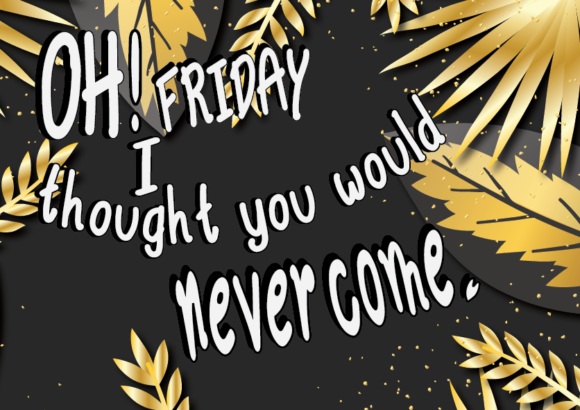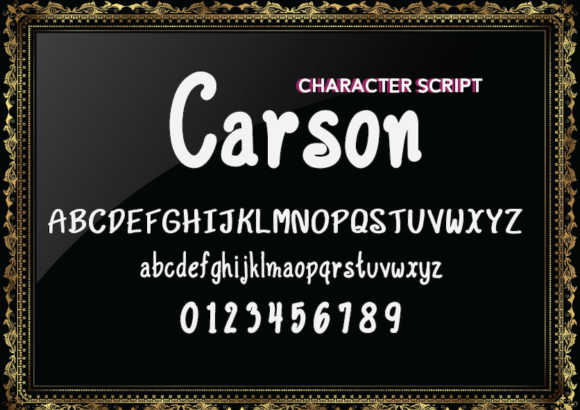
Introducing Carson Font: The Epitome of Elegance and Versatility
In the realm of typography, few fonts manage to strike a balance between elegance and versatility. However, Carson Font stands out as a beacon of sophistication, simplifying elegance into one truly outstanding handwritten font. Dubbed as the perfect fit for logos, branding, social media, and crafty DIY projects, Carson Font has emerged as a favorite among designers and crafters alike.
The Essence of Carson Font
Carson Font embodies the essence of handwritten typography with a unique flair. Its elegant strokes and fluid connections evoke a sense of personal touch, making it an ideal choice for projects that demand a human feel. Whether you’re crafting a logo, creating social media content, or working on a DIY project, Carson Font brings a level of sophistication and charm that’s hard to match.
Versatility at Its Core
One of the standout features of Carson Font is its incredible versatility. It’s designed to adapt seamlessly across various platforms and mediums, ensuring your message looks impeccable whether on a business card, a website, or a handmade craft. This adaptability makes Carson Font a valuable asset for designers and crafters who work on a wide range of projects.
For businesses and entrepreneurs, establishing a strong brand identity is crucial. Carson Font, with its elegant and memorable appearance, is an excellent choice for logos and branding materials. Its unique character ensures that your brand stands out, making it easier for customers to remember and recognize your business.
Enhance Your Social Media Presence
In today’s digital age, having a strong social media presence is vital. Carson Font can help elevate your social media content, making it more engaging and visually appealing. From Facebook posts to Instagram stories, using Carson Font can add a touch of elegance and sophistication, setting your content apart in a crowded digital landscape.
Ideal for Crafty DIY Projects
Crafters and DIY enthusiasts will find Carson Font to be a perfect companion for their creative endeavors. Whether you’re making personalized gifts, crafting signs, or creating art, Carson Font adds a level of professionalism and charm to your projects. Its handwritten feel brings warmth and personality to your crafts, making them truly special.
Why Choose Carson Font?
- Elegance and Versatility: Carson Font combines elegance with versatility, making it suitable for a wide range of projects.
- Easy to Read: Despite its elegant appearance, Carson Font remains highly legible, ensuring your message is always clear.
- Unique Appeal: Its unique handwritten feel sets it apart from more traditional fonts, giving your projects a distinctive look.
- Cross-Platform Compatibility: Carson Font performs beautifully across different mediums, from digital screens to print materials.
| Author | Atta Design |
Carson Font is more than just a font; it’s a tool that can elevate your designs, enhance your brand, and add a touch of elegance to your projects. Its versatility, elegance, and unique appeal make it an invaluable resource for designers and crafters. Whether you’re working on a professional project or a personal DIY endeavor, Carson Font is sure to simplify your path to creating something truly outstanding.
Embrace the elegance and versatility of Carson Font, and discover how it can transform your creative projects into memorable and impactful works of art.